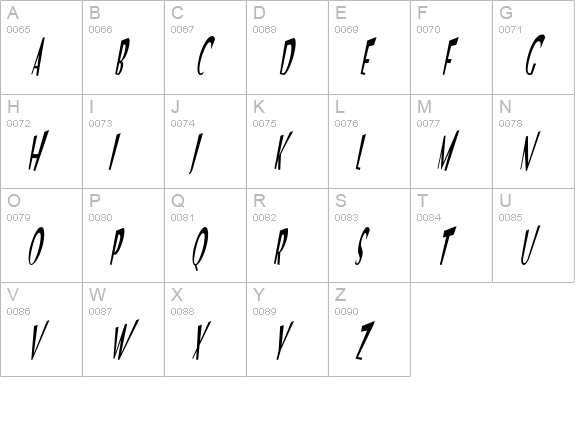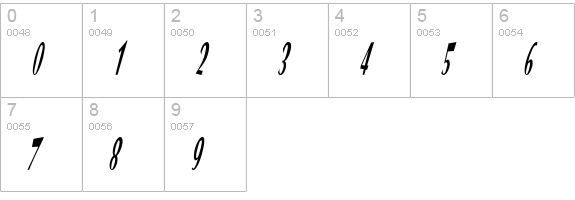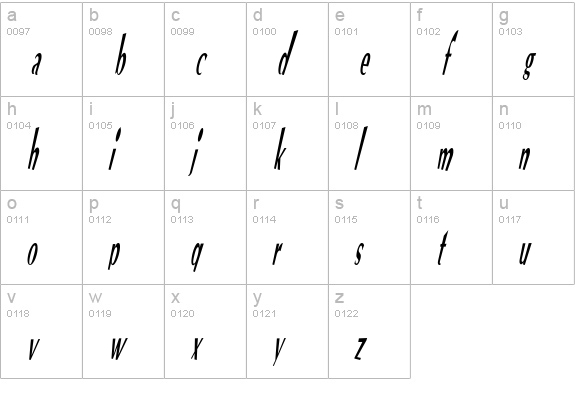
VTC Optika Regular Italic Font Details
VTC Optika Regular Italic is the standard, neutral, italic variant in the VTC typeface family \xE2\x80\x94 well suited to general body text, paragraphs, and standard typographic work.
VTC Optika Regular Italic font is a brilliant typeface that combines elegance and versatility in a captivating way. Its sleek and slanted design adds a touch of sophistication to any project, making it perfect for both professional and creative endeavors. With its flowing curves and subtly italicized letterforms, VTC Optika Regular Italic effortlessly conveys a sense of dynamism and movement. The subtle variations in stroke width create a harmonious balance between the bold and delicate elements of the font, resulting in a visually striking and engaging aesthetic. Whether used for headings, body text, or even logo designs, VTC Optika Regular Italic exudes a contemporary and refined charm that is sure to capture attention. Its legibility remains uncompromised even at smaller sizes, ensuring clear communication of your message across various mediums. What makes VTC Optika Regular Italic even more appealing is the fact that it is freely available to download at FontsMarket.com. This means that you can enjoy the beauty and functionality of this exceptional font without any cost. Embrace the freedom to create stunning designs with VTC Optika Regular Italic and let your creativity soar to new heights. Download VTC Optika Regular Italic from FontsMarket.com today and unlock a world of design possibilities. Whether you are a graphic designer, a web developer, or an enthusiast looking to add a touch of elegance to your personal projects, this font is the perfect choice. Experience the seamless blend of style and functionality that VTC Optika Regular Italic offers and elevate your designs to new levels of excellence.